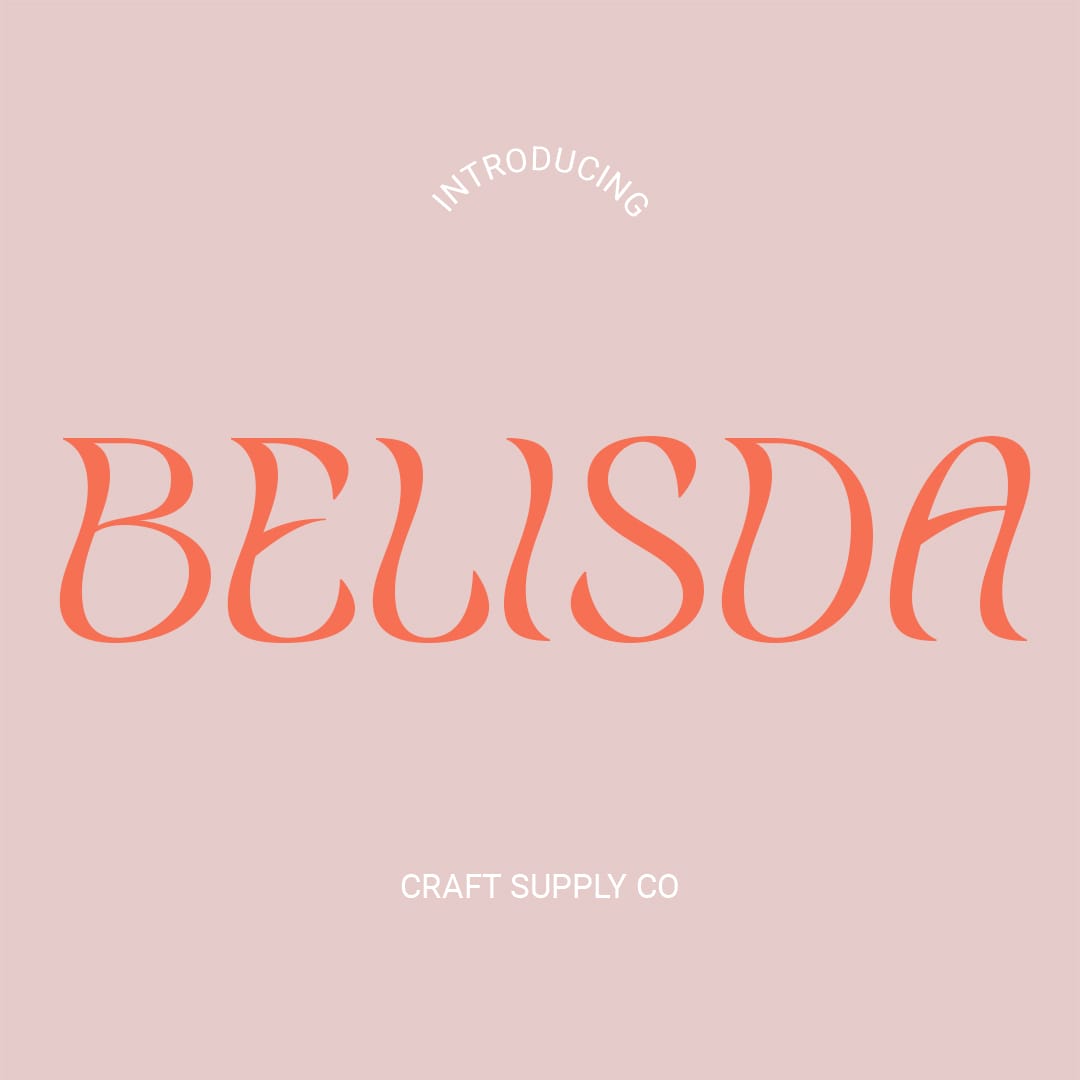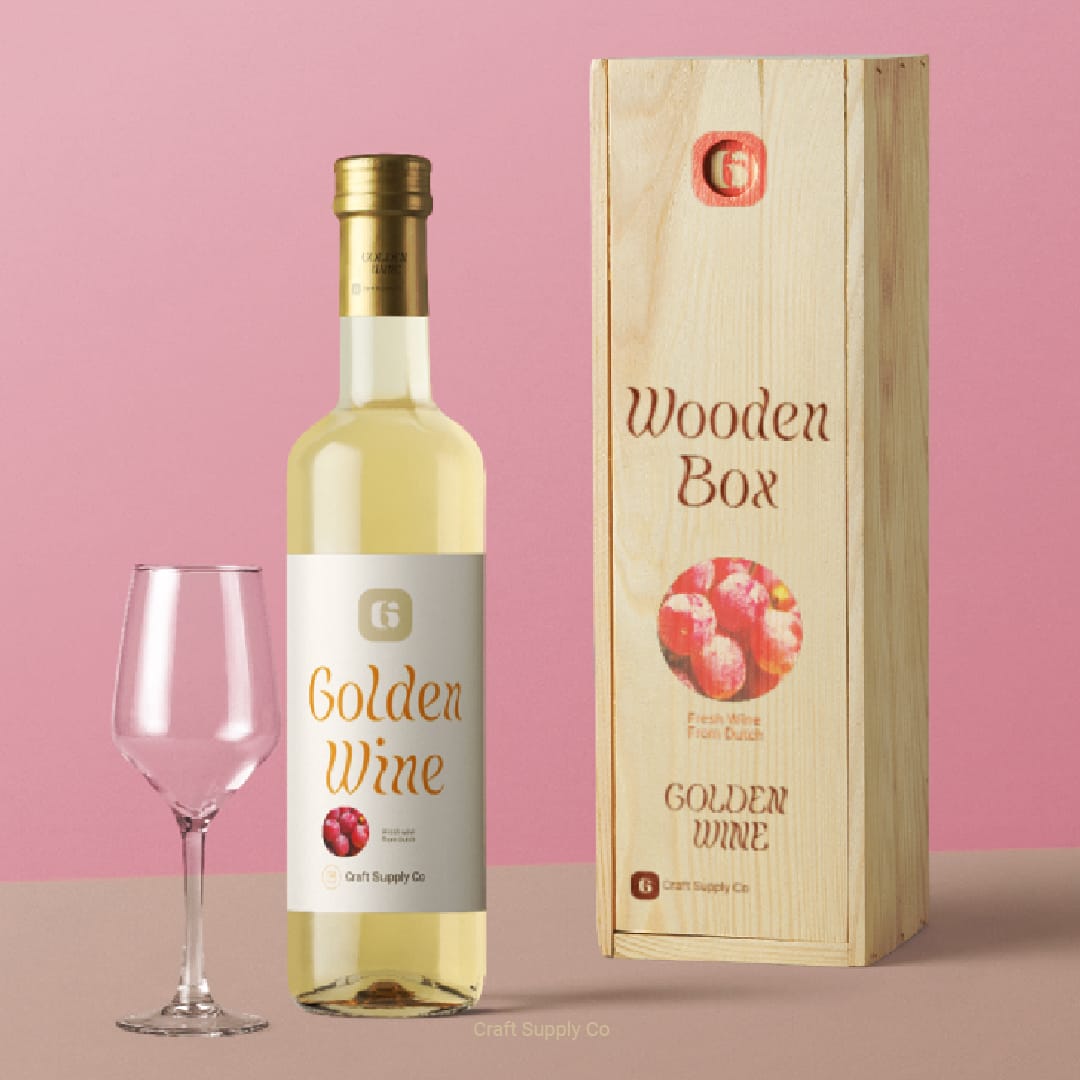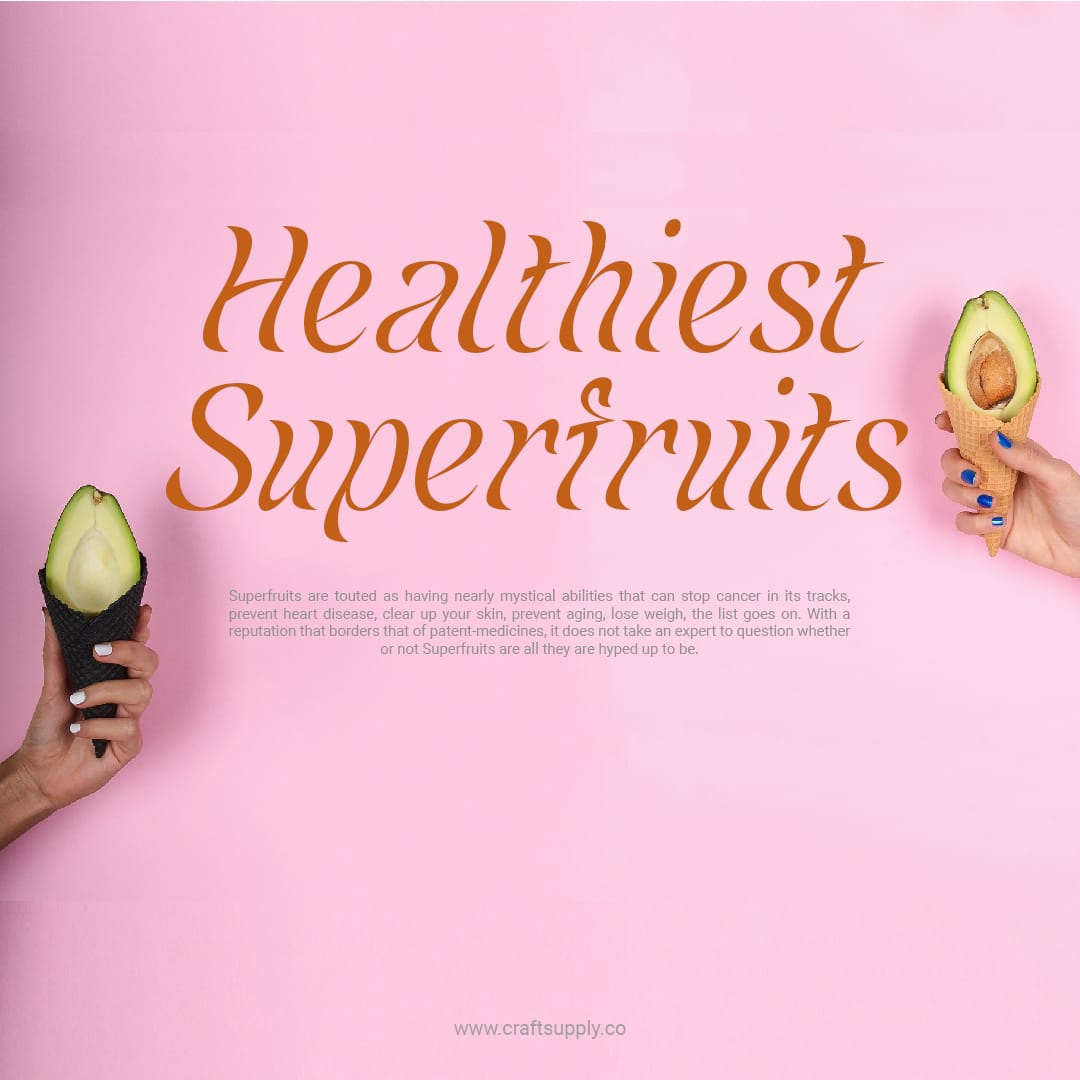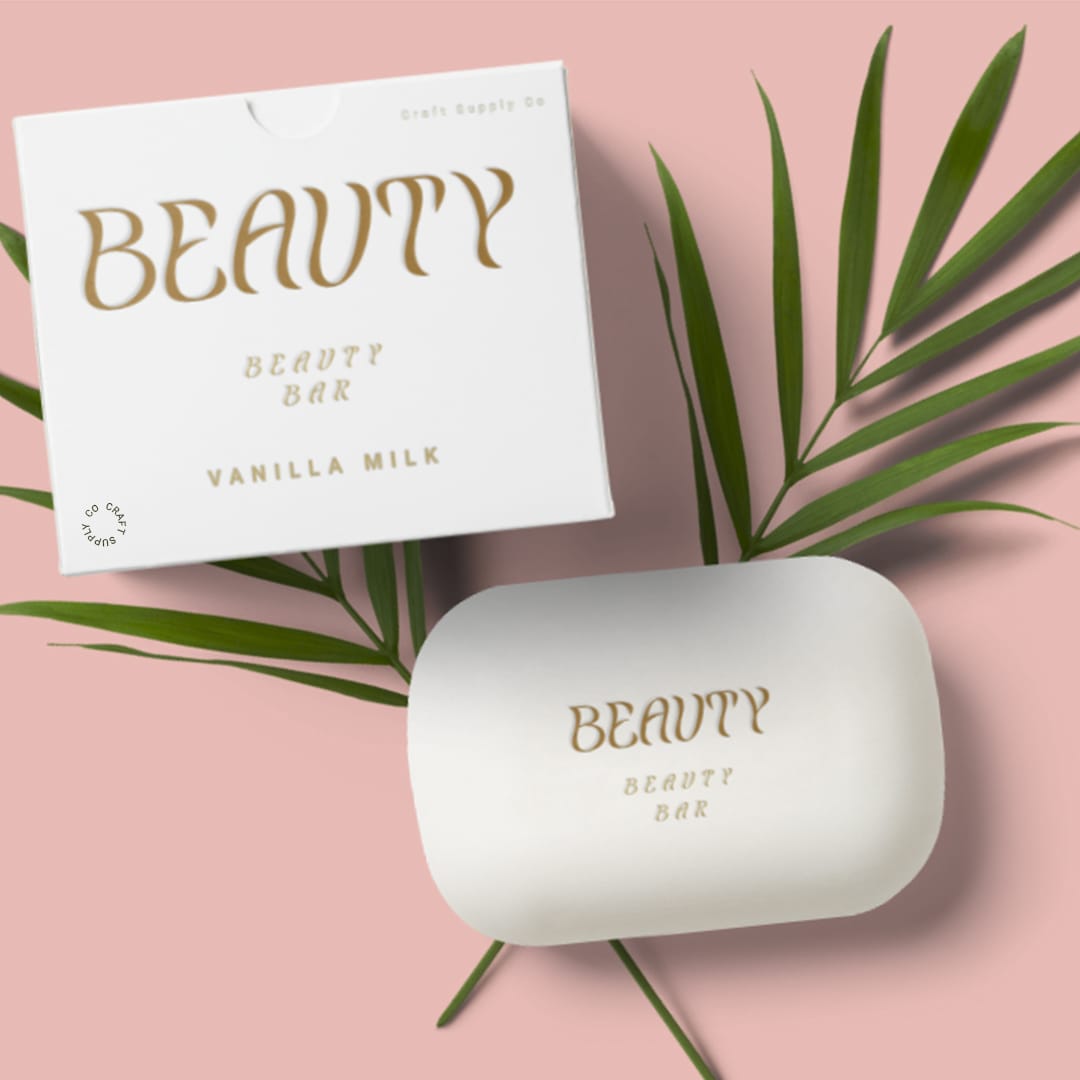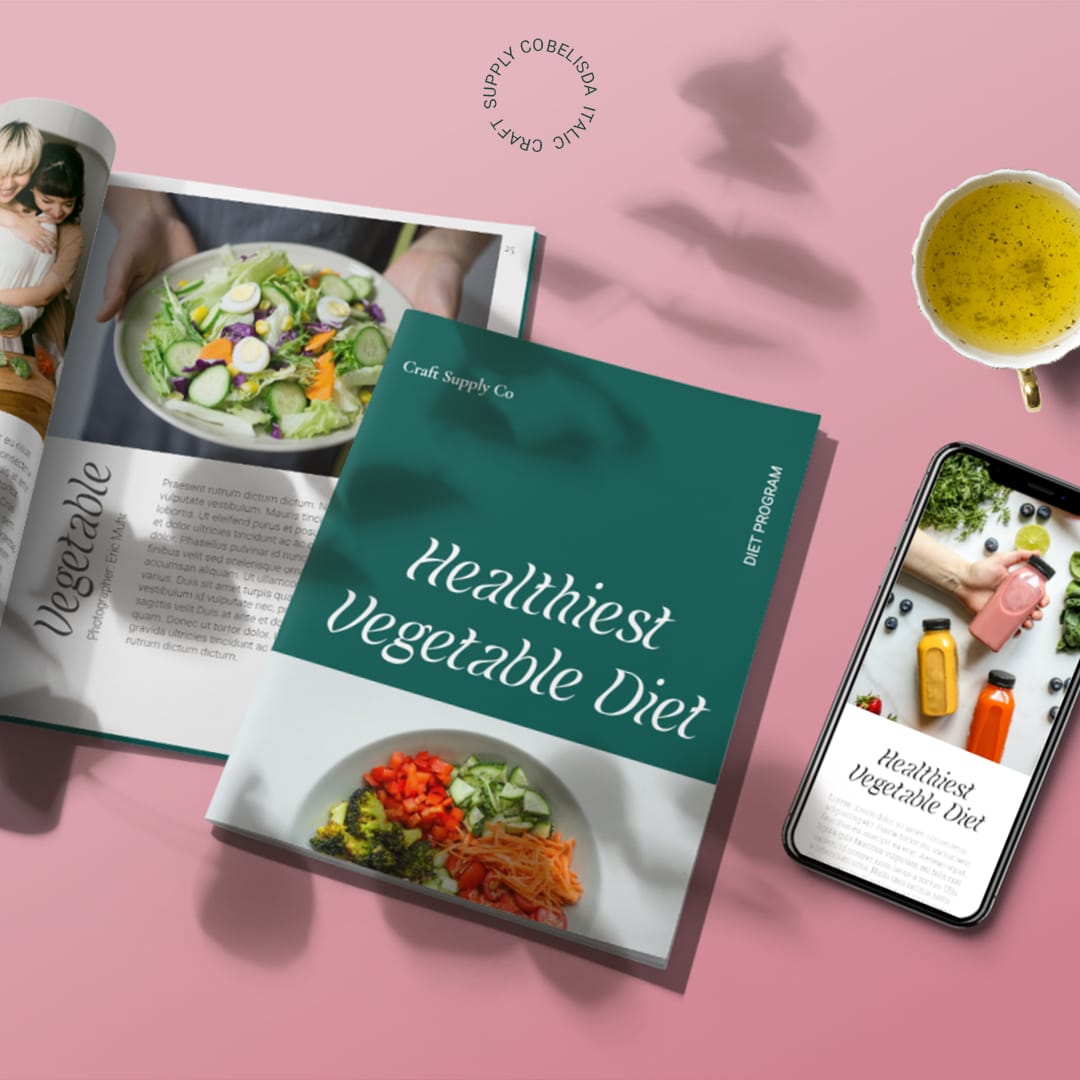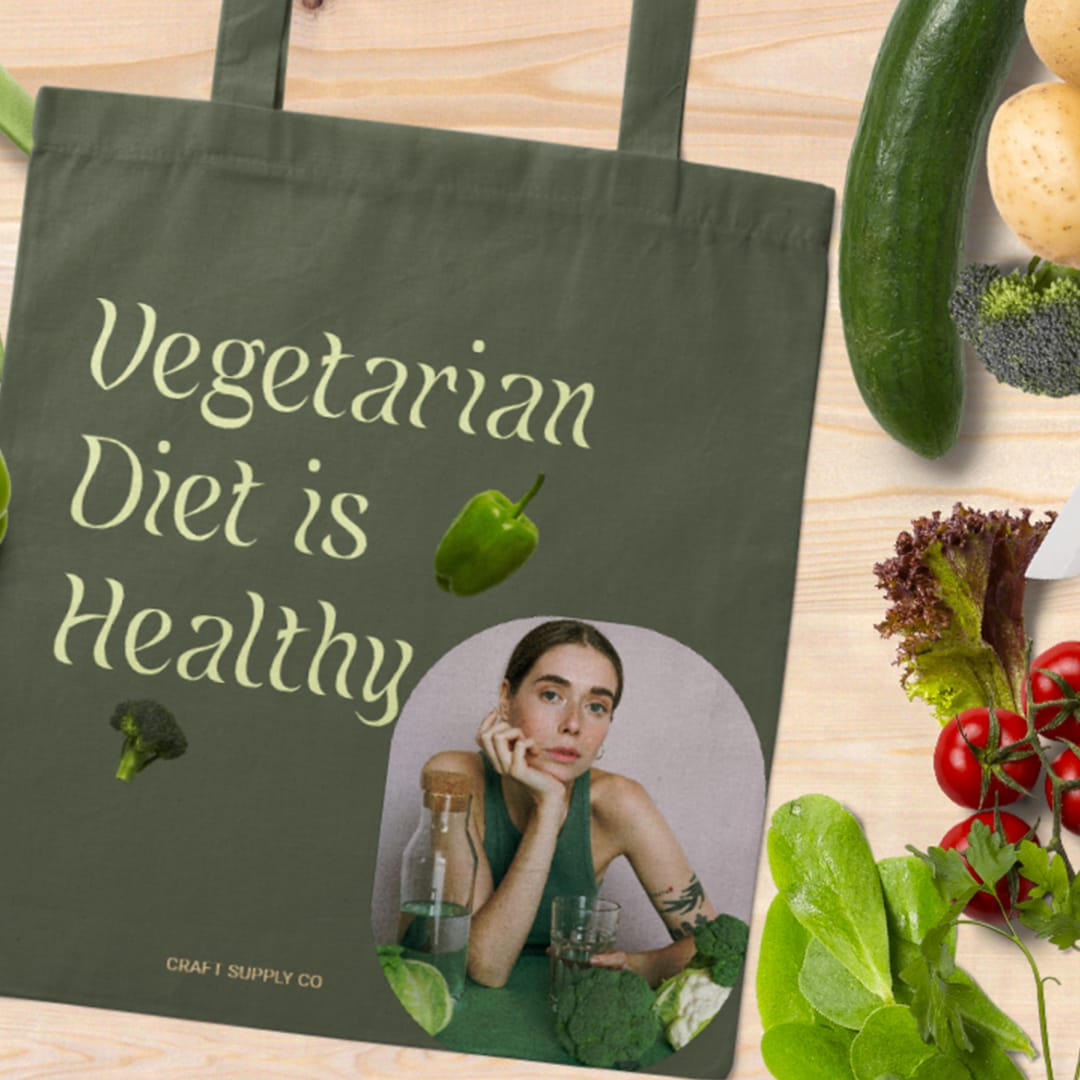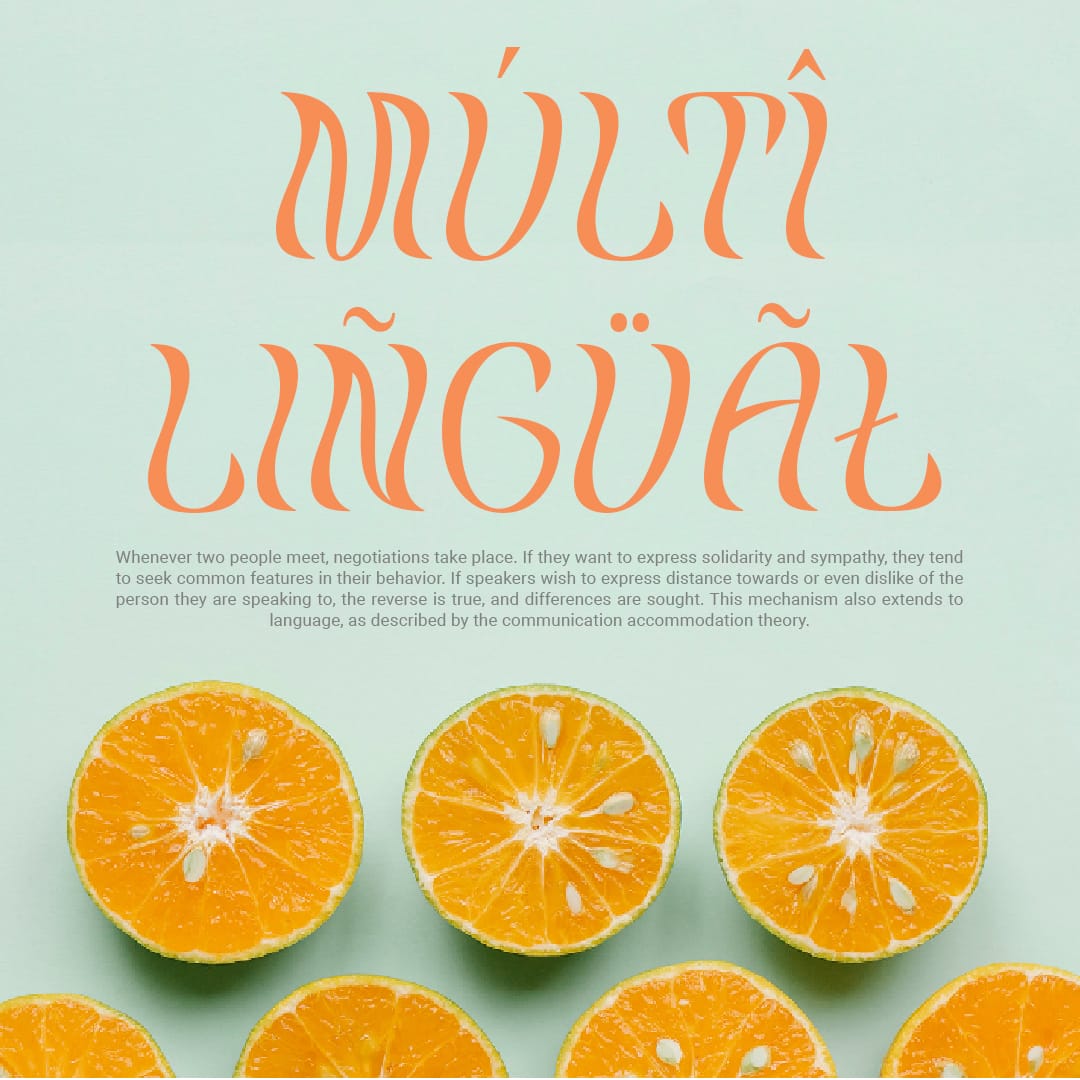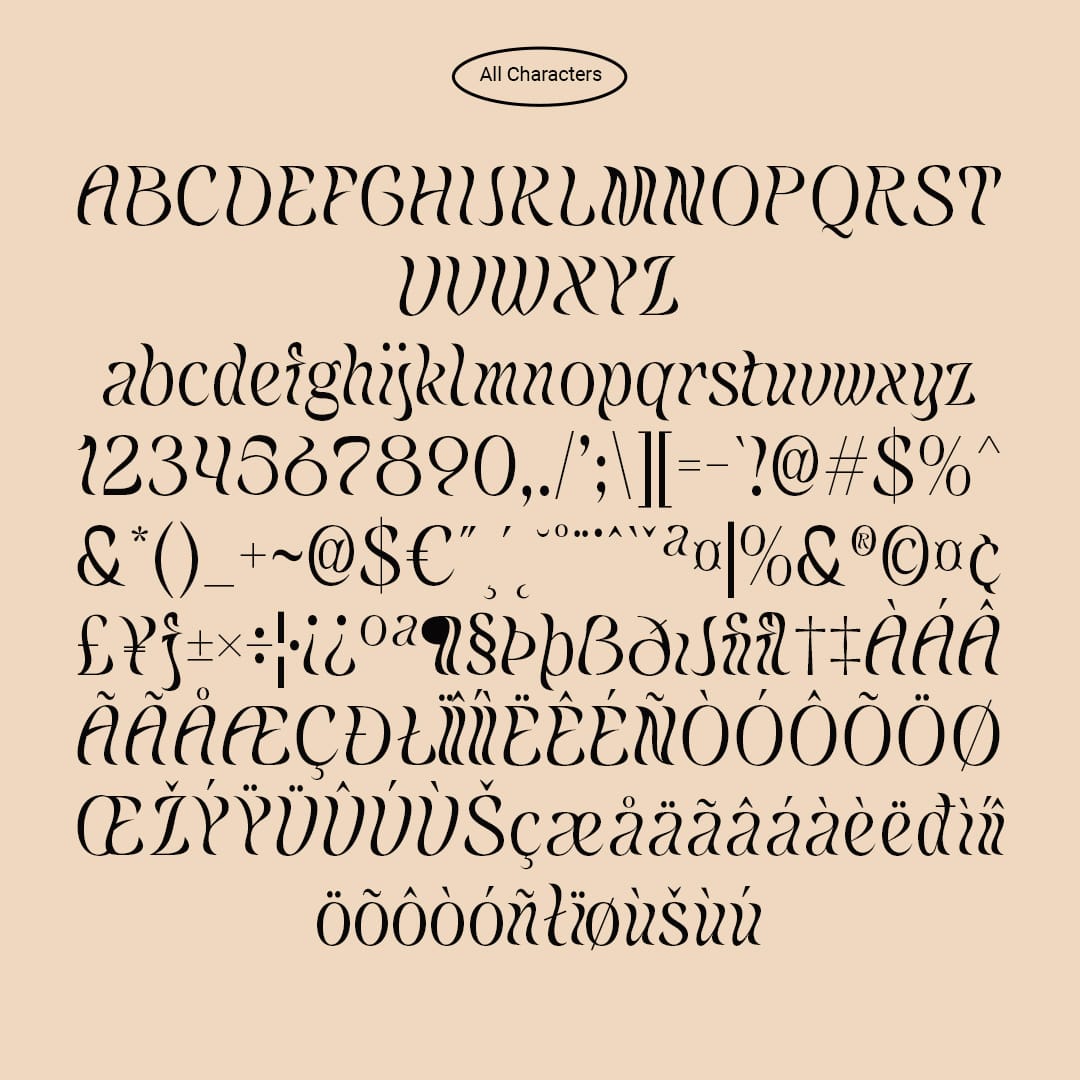
Belisda – Display Typeface
Belisda Font: Redefining Display Typography
Innovative Fusion
Belisda presents a groundbreaking fusion of sans serif and script elements, creating a visually striking and contemporary display typeface.
Dynamic Visuals
With its unique combination, Belisda breathes new life into traditional display typography, offering dynamic visuals that captivate the eye and engage the audience.
Perfect Harmony
The seamless integration of sans serif and script creates a perfect harmony, resulting in a font that is both modern and versatile, suitable for a wide range of design projects.
Endless Possibilities
From logos to posters, This font opens up endless possibilities for designers, providing them with a tool to express creativity and craft captivating visuals.
Sans Serif Meets Script
This font stands at the intersection of tradition and innovation, offering a fresh perspective on display typography. Embrace the blend of sans serif and script, and elevate your designs with Belisda’s contemporary charm.
Belisda Regular
Belisda Italic
Belisda is a contemporary display typeface that combines sans serif and script elements, offering a unique visual style. It includes uppercase and lowercase characters, numerals, punctuation, multilingual accents, and PUA encoding, available in Regular and Italic styles.